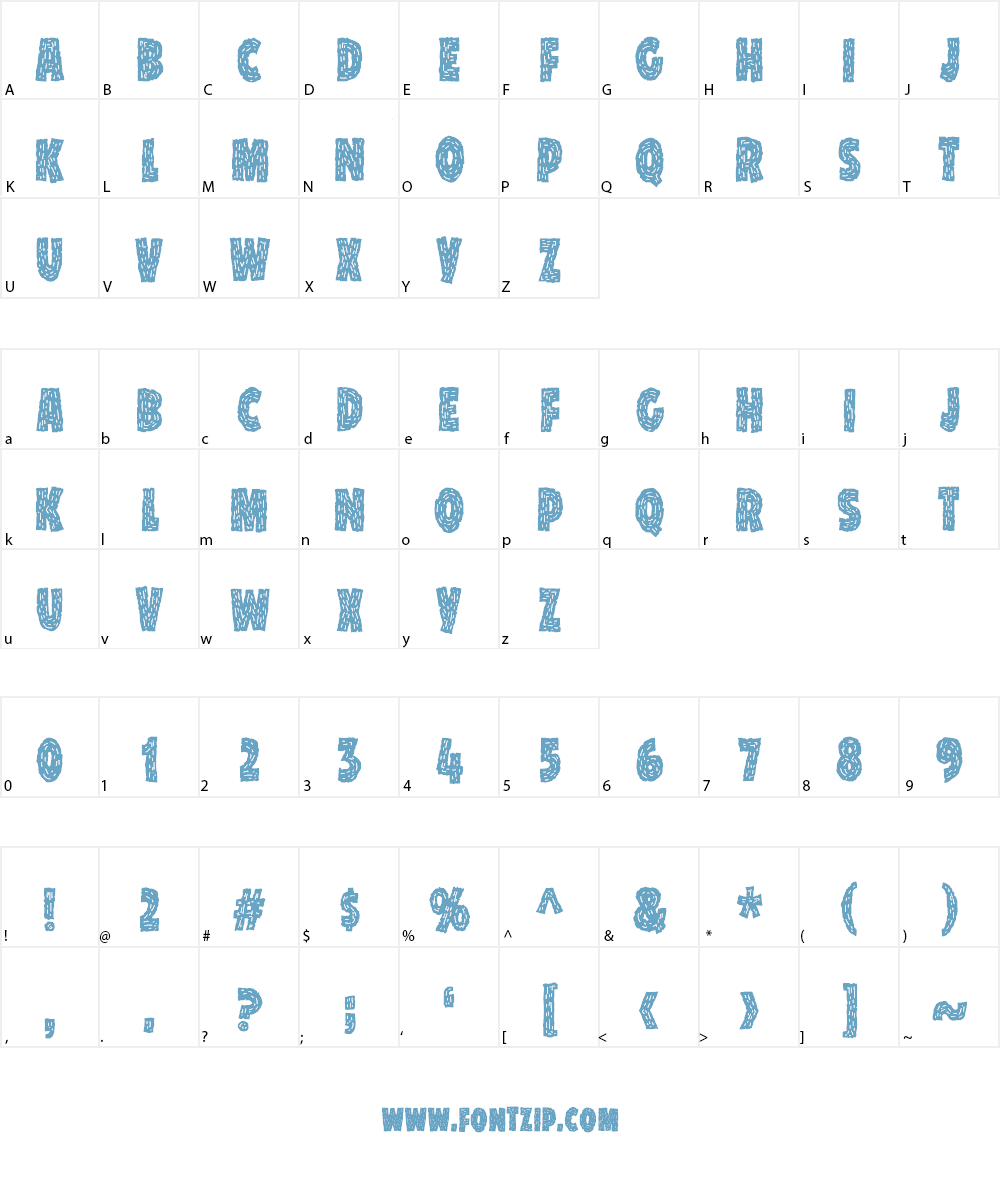
Snack Patrol keeps an eye on your candy!
It also keeps an eye on your design! 5 different versions for you to play around with - and ofcourse they all have different upper- and lowercase along with ligatures for double letters!